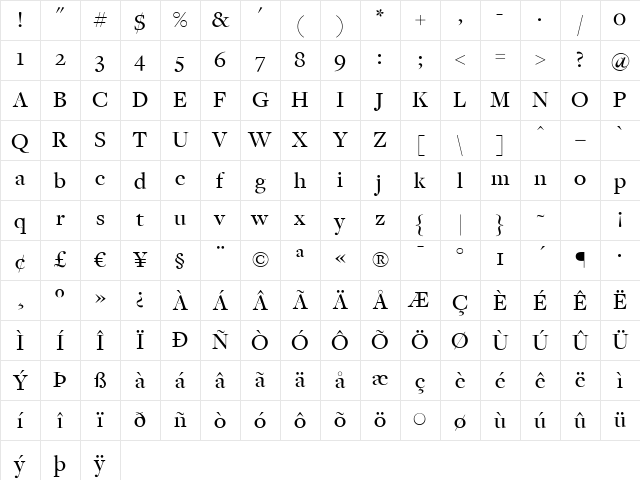
FreightDispMedium Regular
Foundry: Joshua Darden & Phil's Fonts, Inc
Designer: Joshua Darden
Design Context for FreightDispMedium
FreightDispMedium is a composed and adaptable typeface that performs quietly and consistently across a wide range of design contexts.